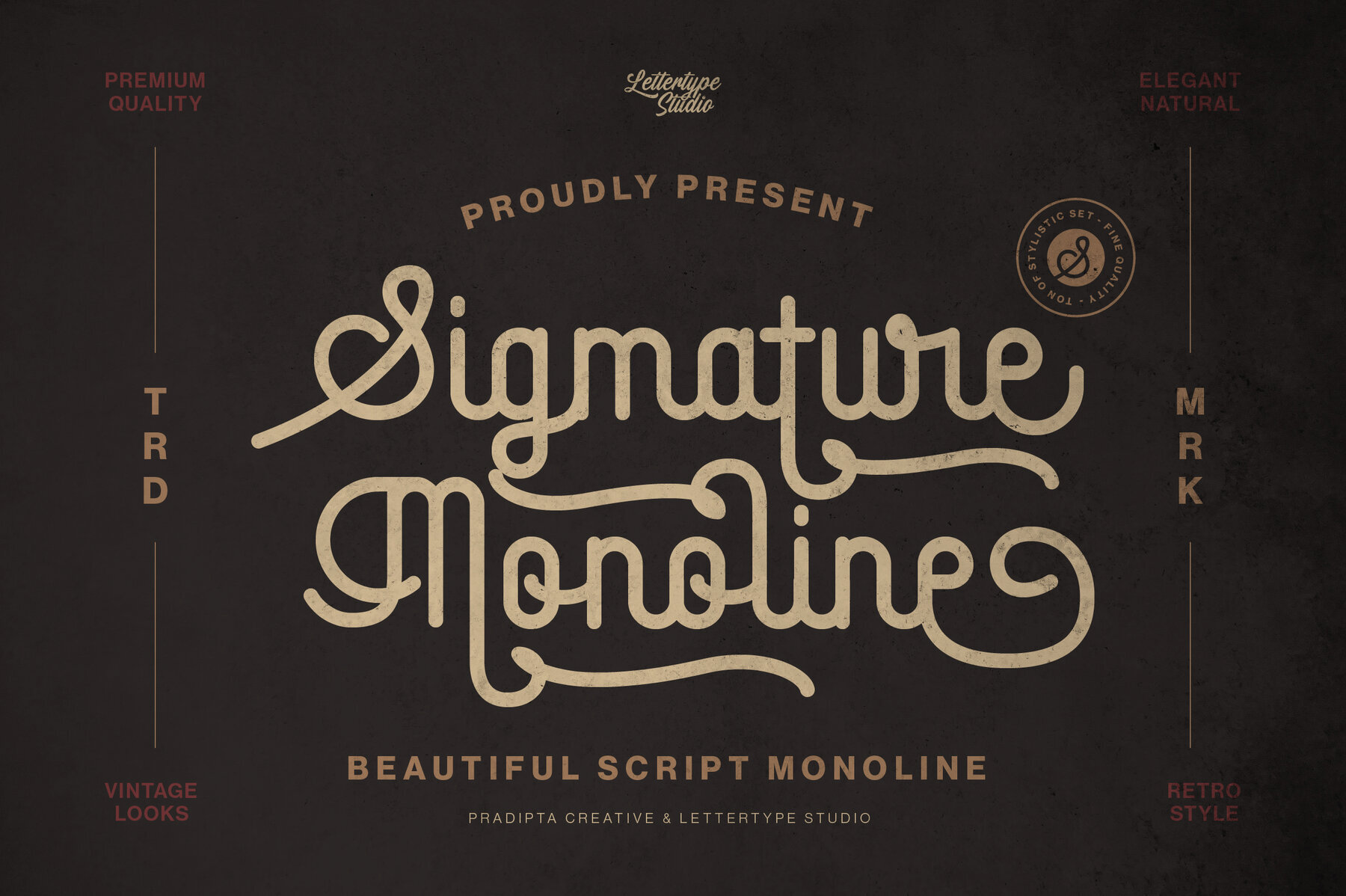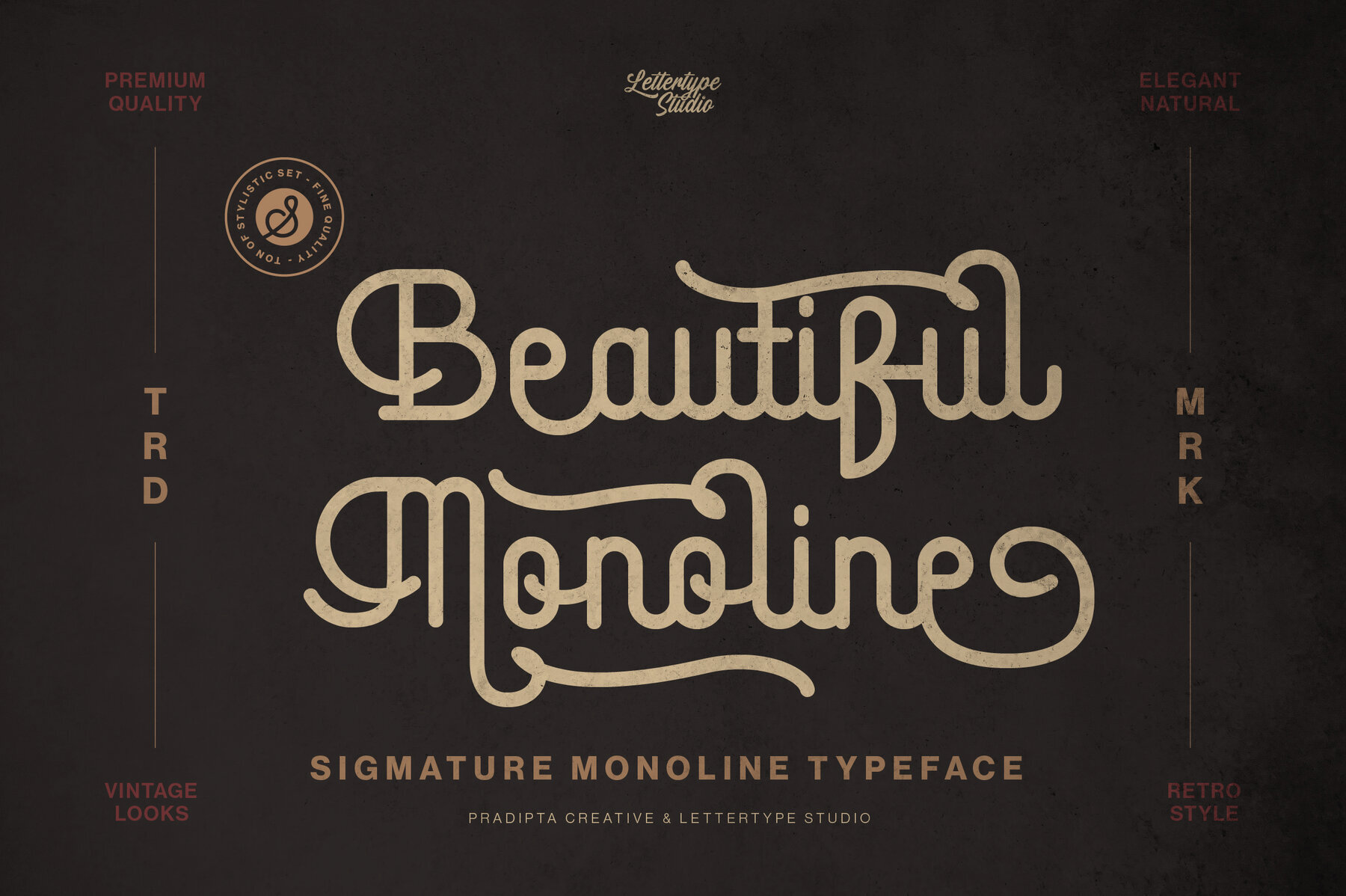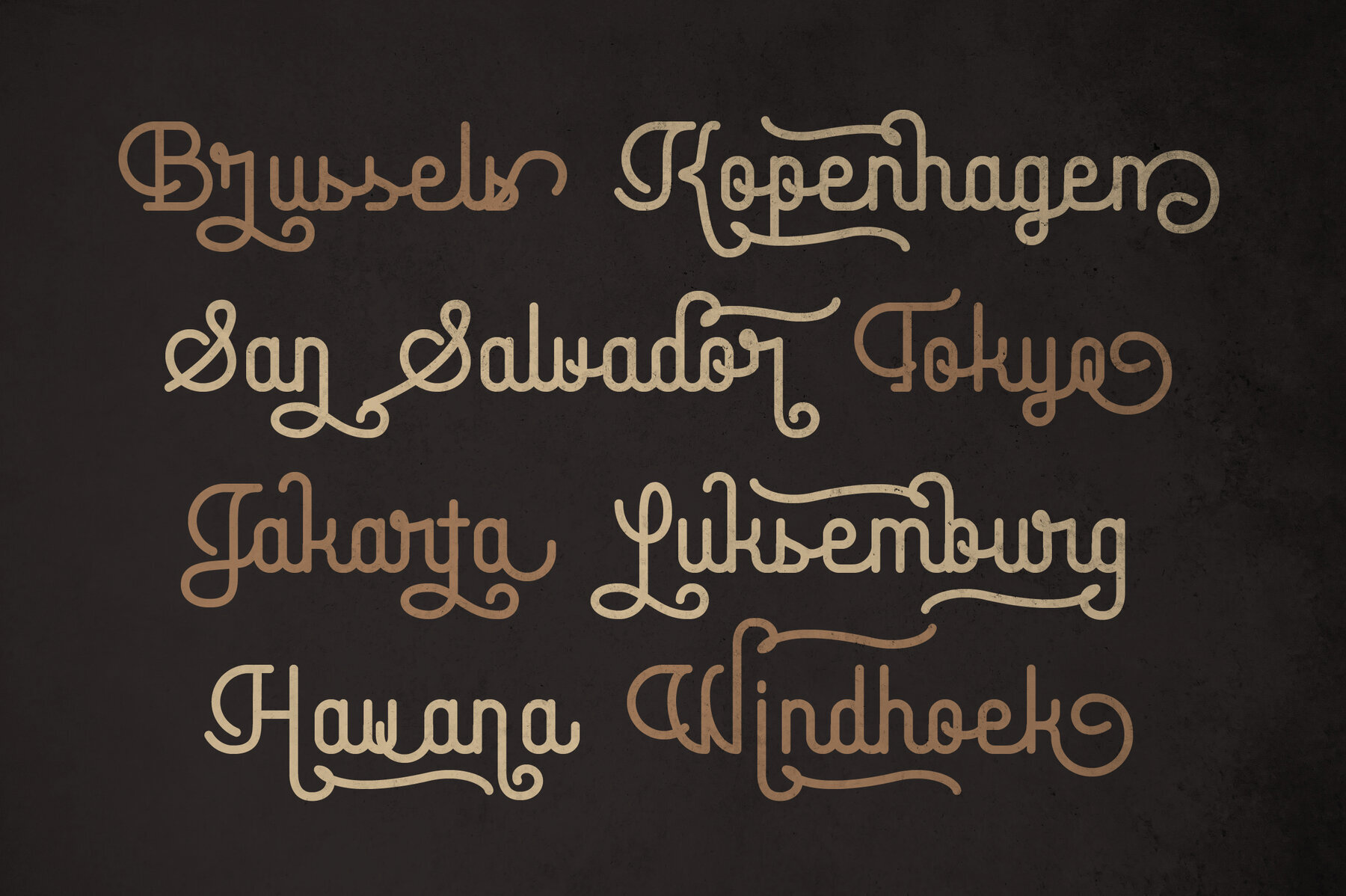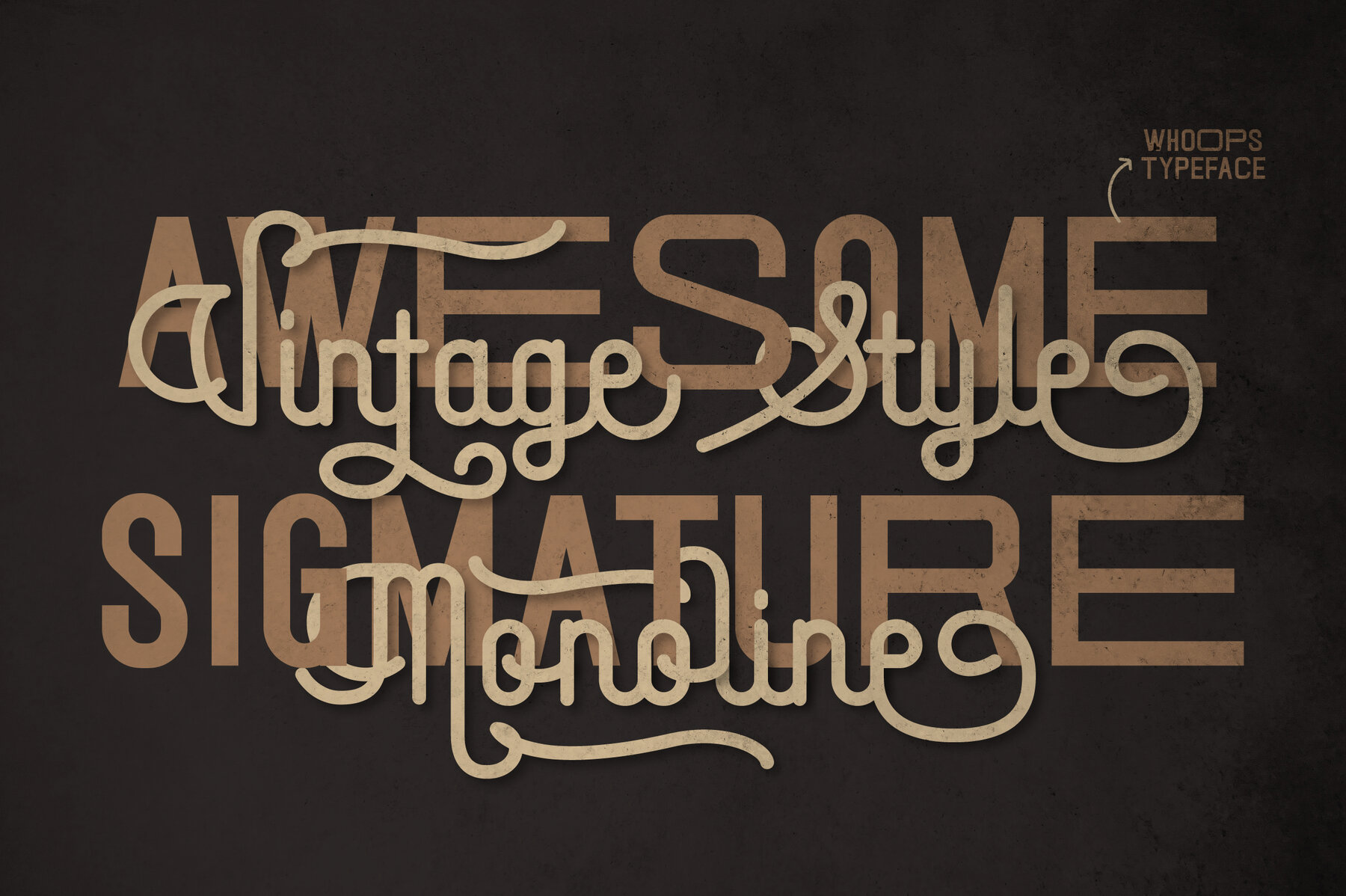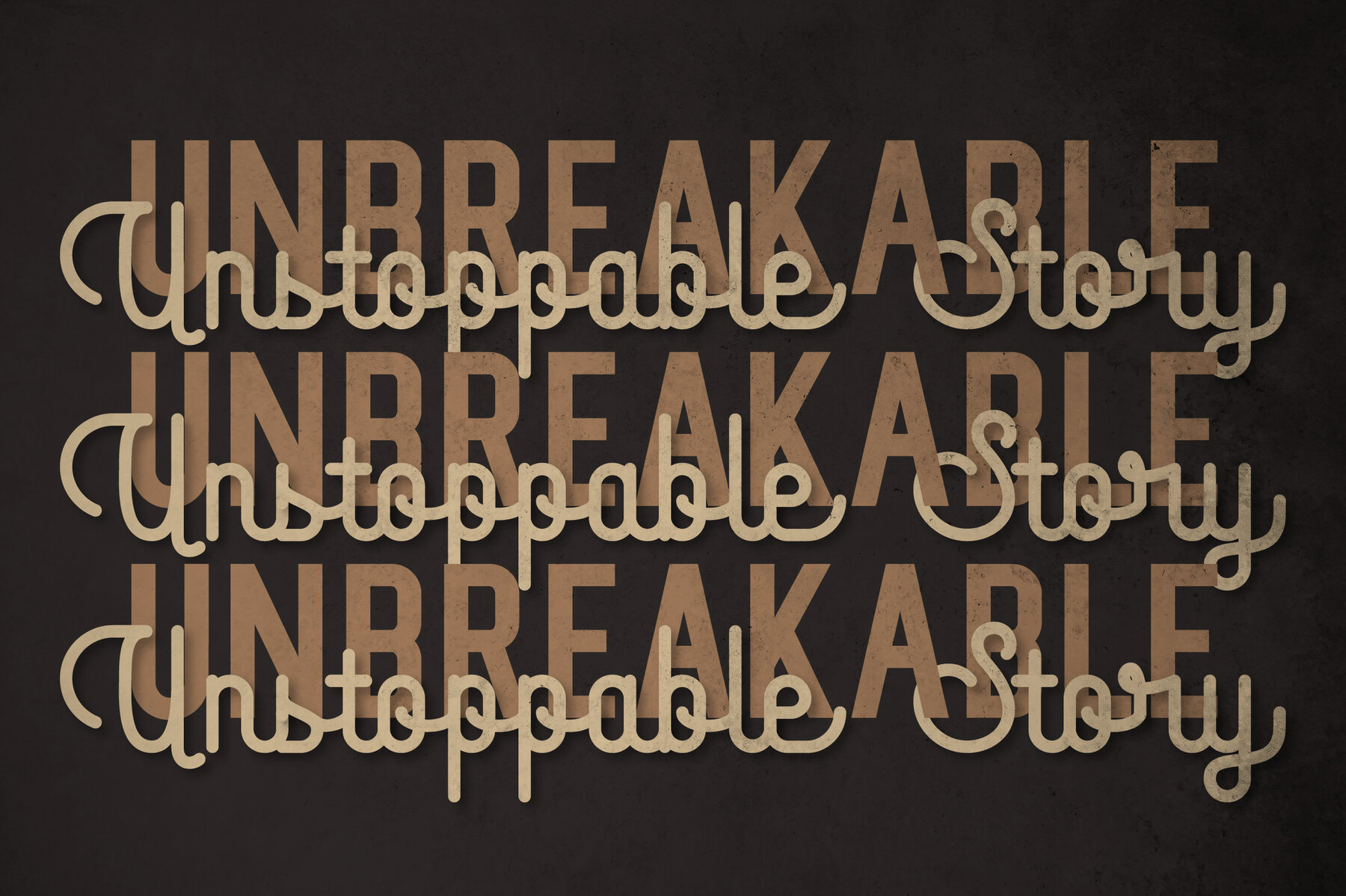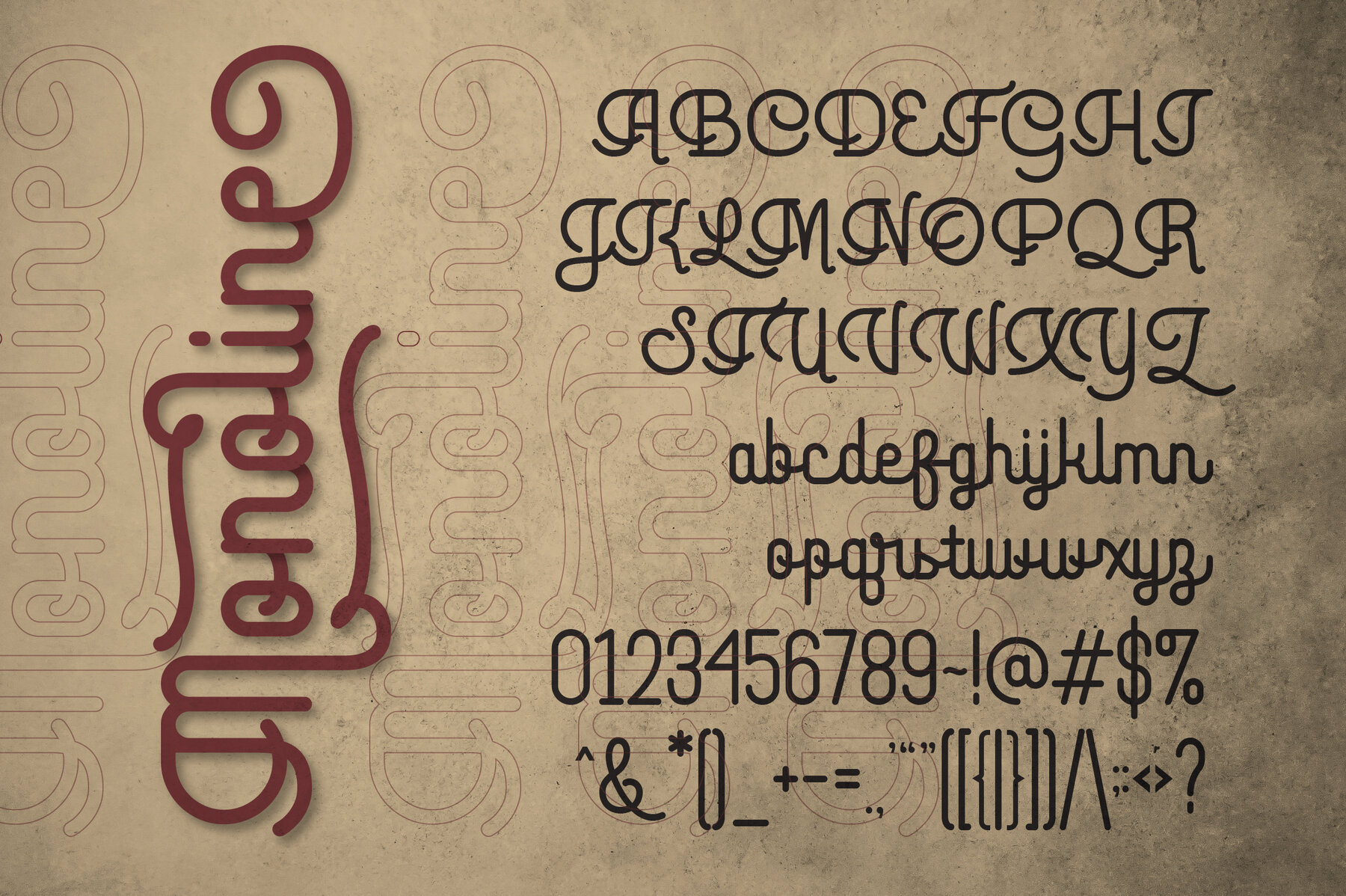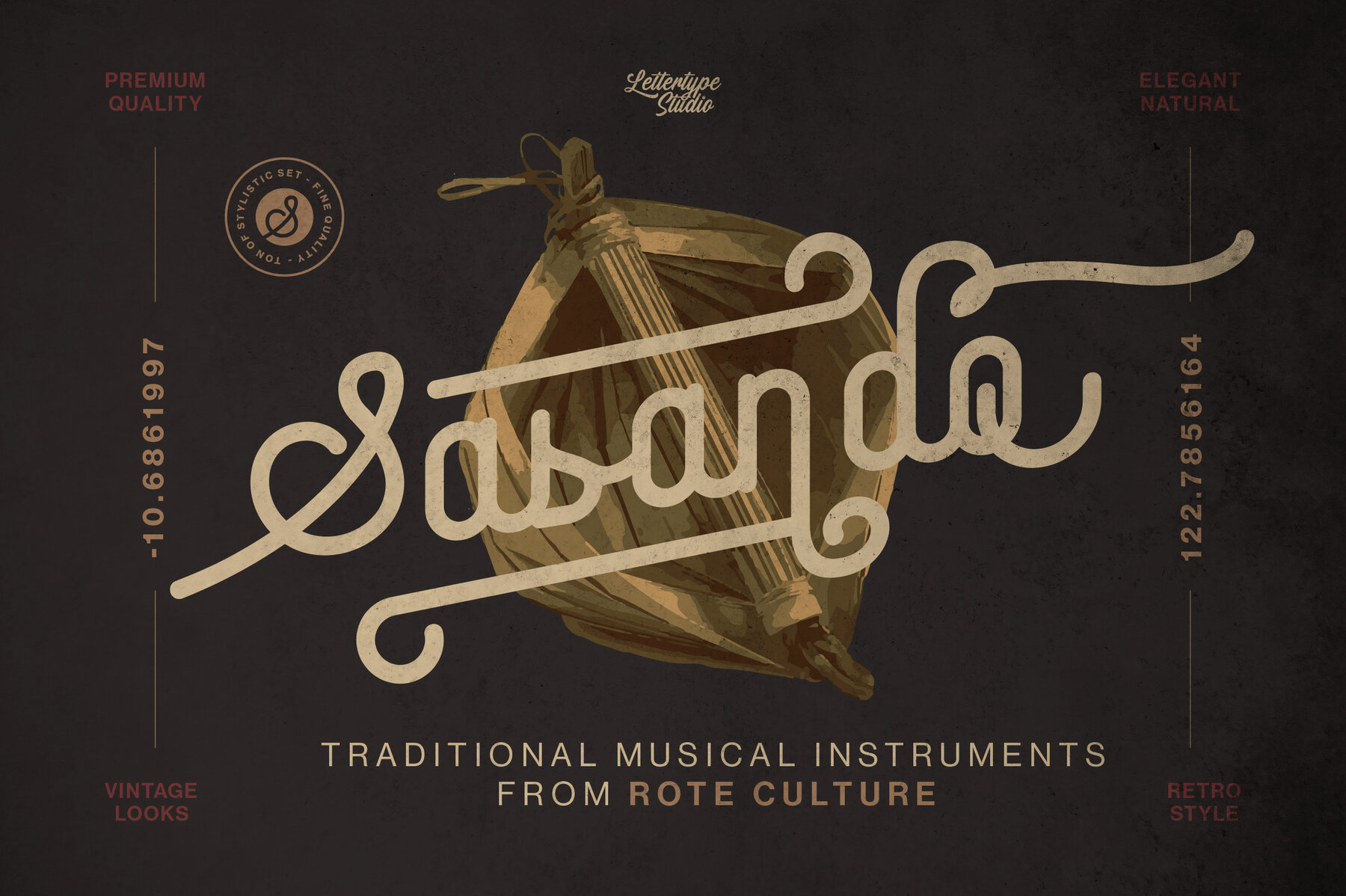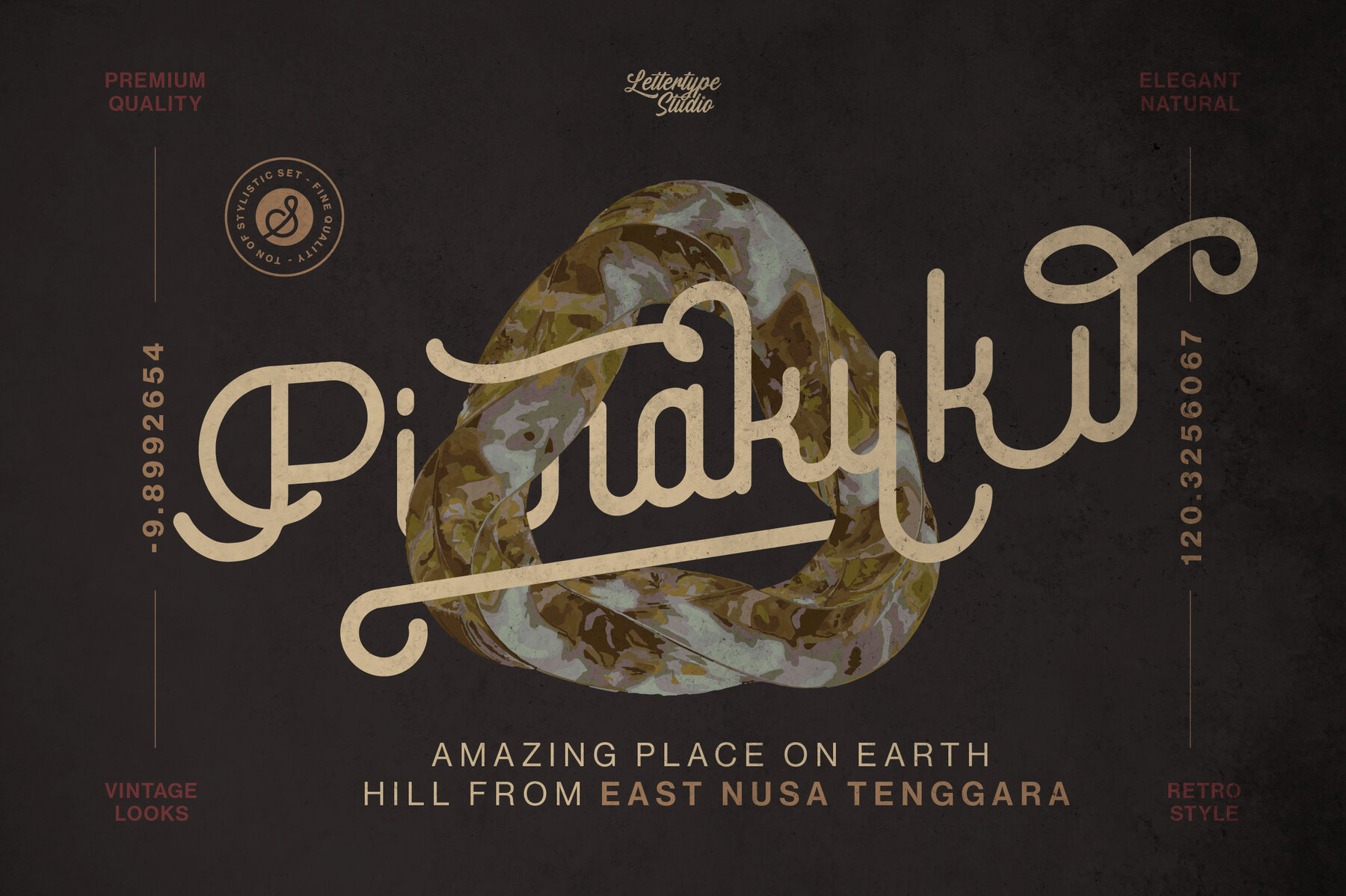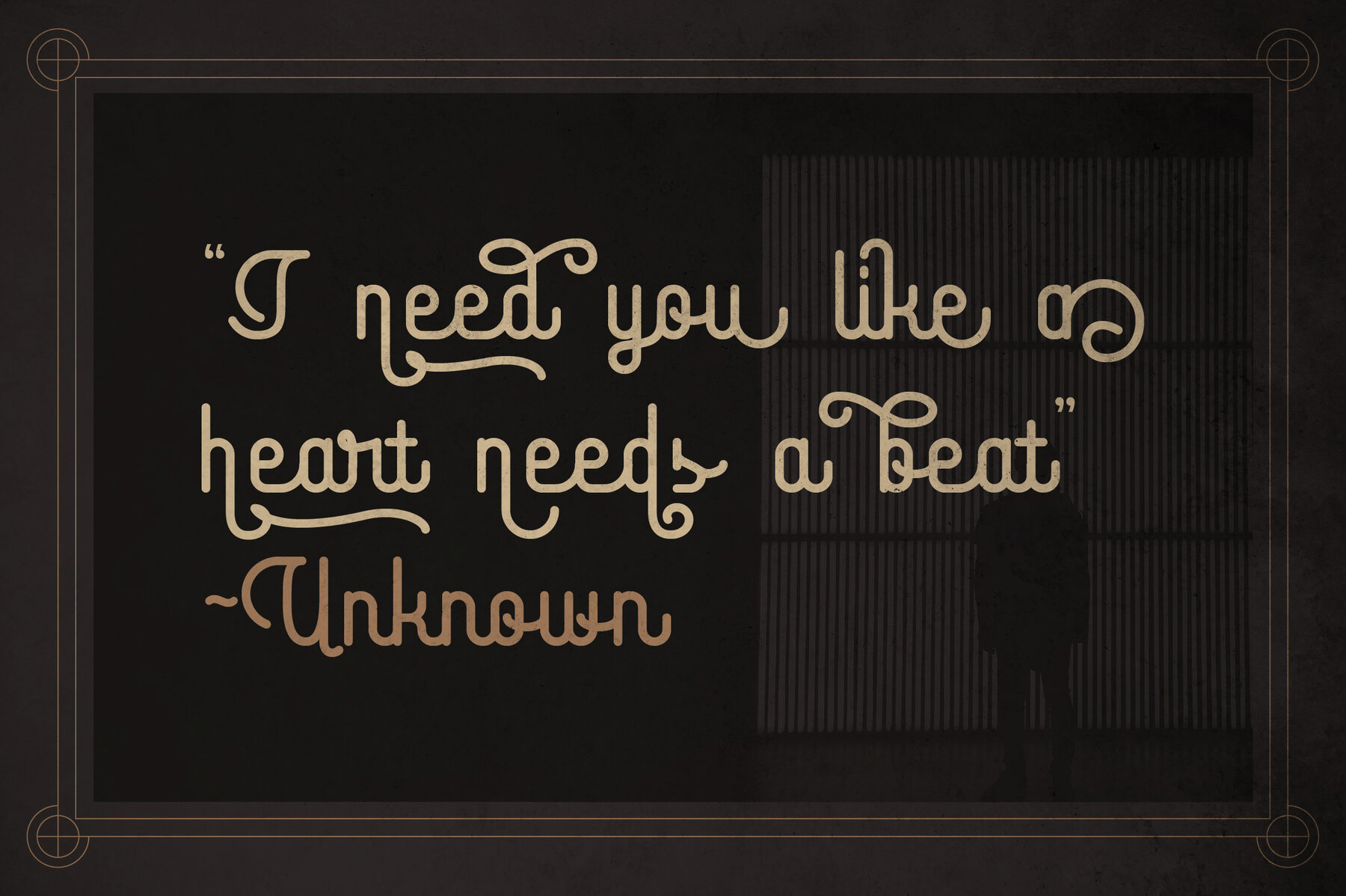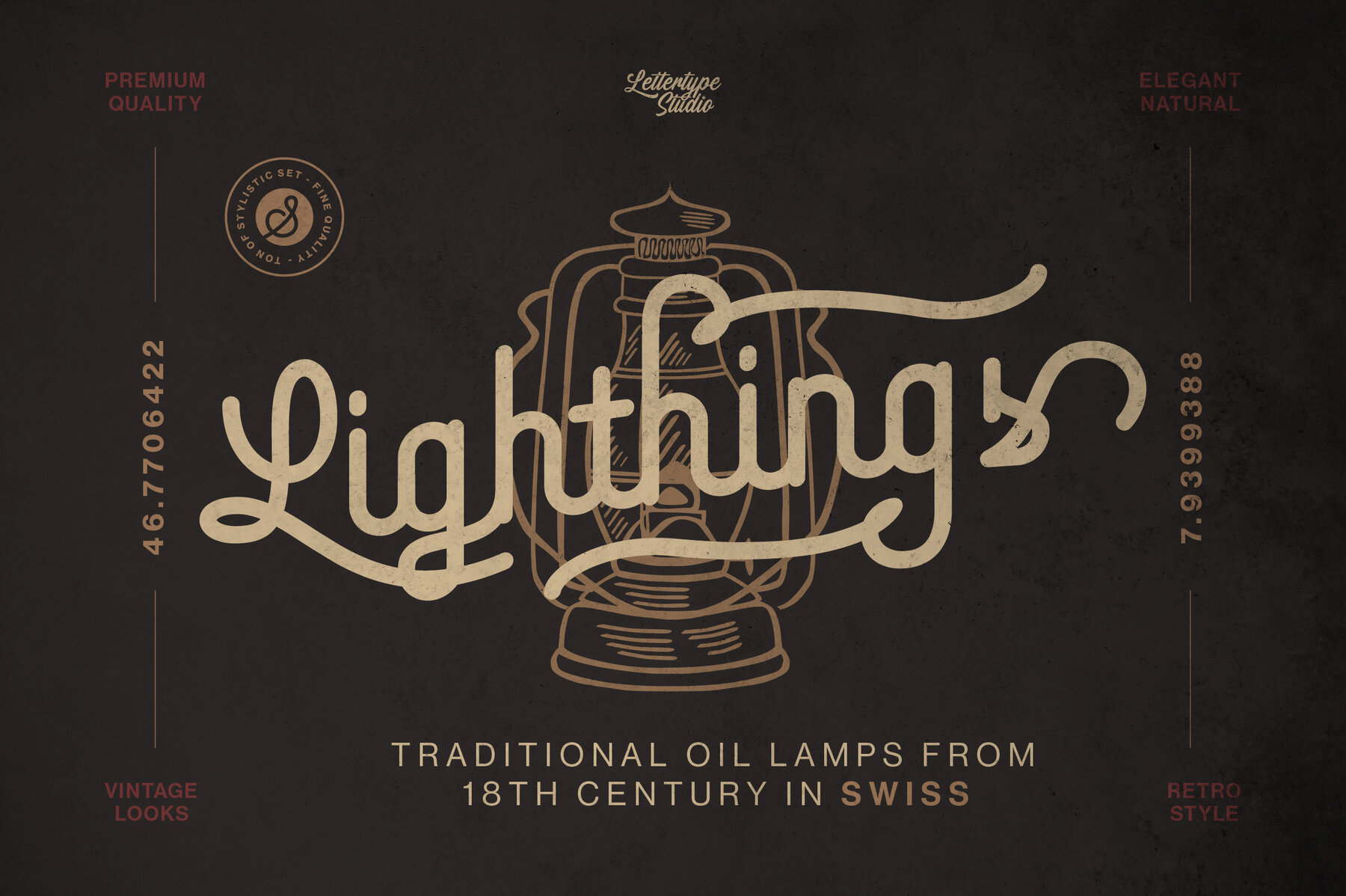
Sigmature Monoline Font
Sigmature Monoline merges vintage charm with contemporary flexibility in a beautifully crafted script monoline font. Its over 285 stylistic sets and 22 smooth swashes provide immense creative potential for producing distinct and elegant designs. Ideal for signature-style logos, packaging, t-shirt prints, labels, and retro branding, this font stands out with its fluid curves and classic monoline style. Fully PUA encoded for seamless alternate access, Sigmature Monoline ensures a smooth design experience. Enjoy the blend of flowing curves, monoline weight, and refined letterforms, making it a designer's best friend.Sigmature Monoline Font
Sigmature Monoline Features